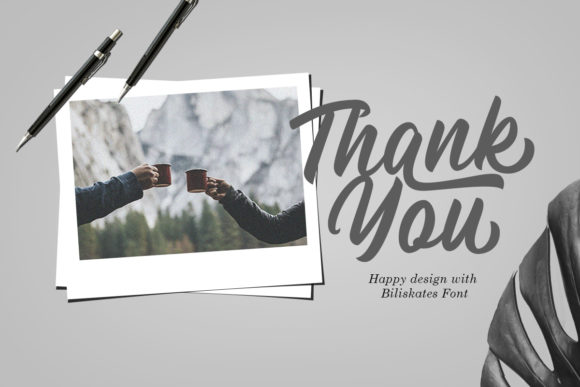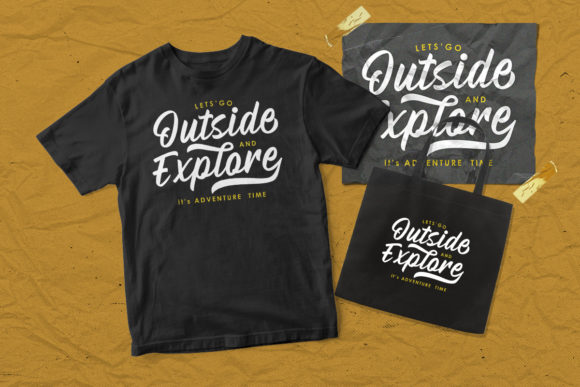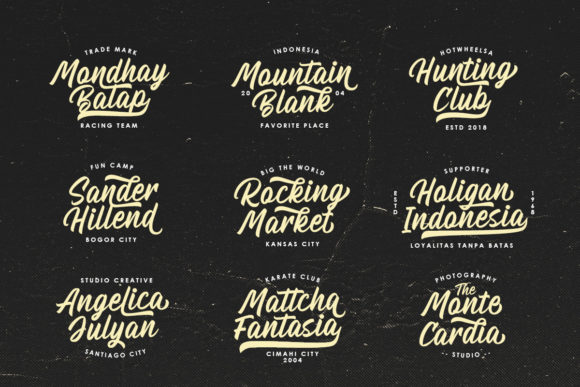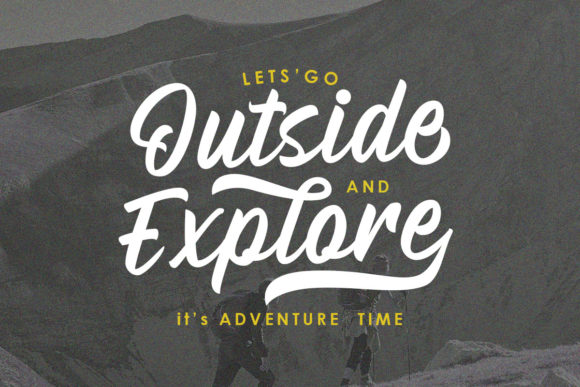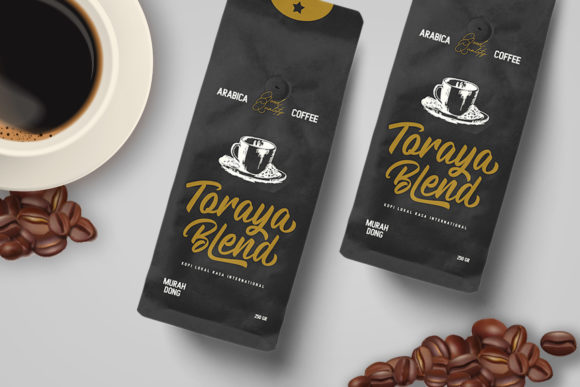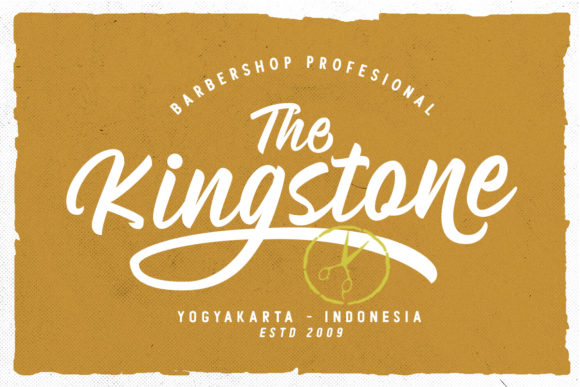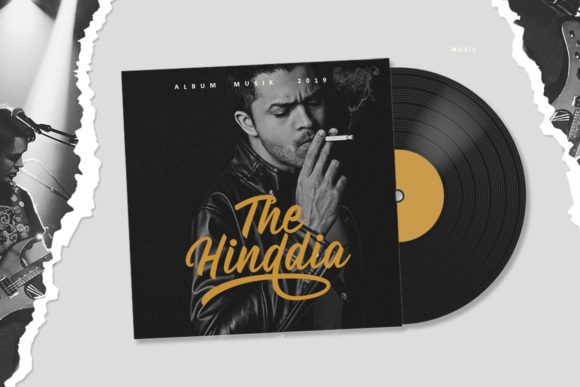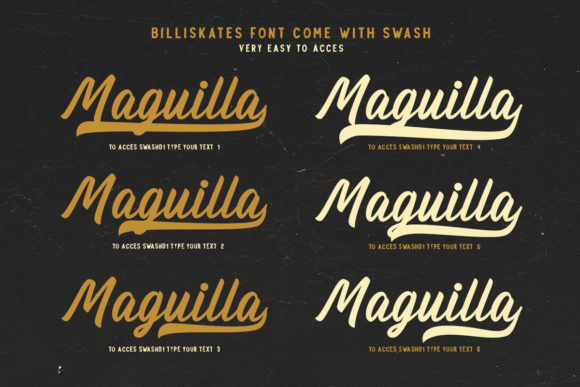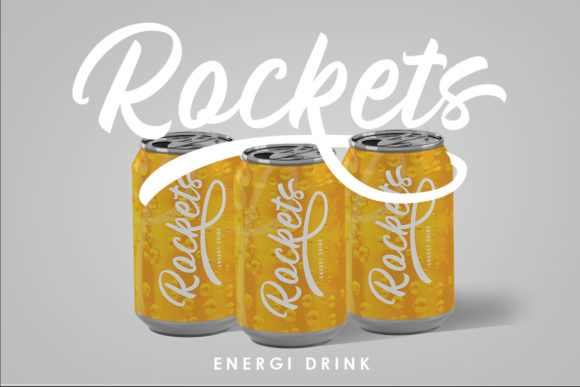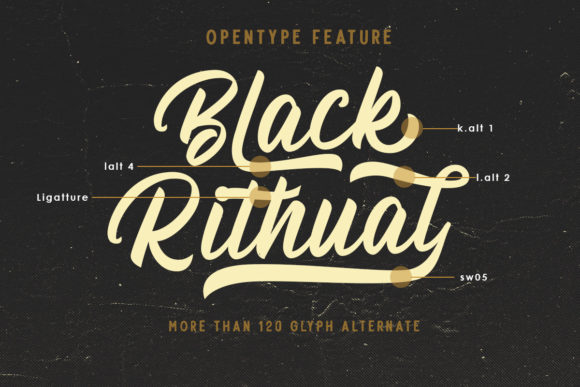
HomeScript FontsBillskates Font Script Fonts Billskates Font FacebookXPinterestWhatsApp Billskates Font Poster 2 Billskates Font Poster 3 Billskates Font Poster 4 Billskates Font Poster 5 Billskates Font Poster 6 Billskates Font Poster 7 Billskates Font Poster 8 Billskates Font Poster 9 Billskates Font Poster 10 Billskates Font Poster 11 Billskates Font Poster 12 Billskates Font Poster 13 About Billskates Font Billskates is a modern and bold script font that aches with nostalgia. Fall in love with its elegant charm! DOWNLOAD ON CREATIVE FABRICAThis font is sold and delivered by Creative Fabrica. Font Canyon may earn a commission if you buy through this link. People also explored Estelle Font Letter Hanger Cruz Script Calligraphic Pro Aloha Friday Font Fantasy Script 1 Font Majblomma Font Thuesday Font Volgue Font Katty Font 355 0 TagsBillskates Font Previous articleQuestario FontNext articleMarlina Font LEAVE A REPLY Cancel reply Comment: Please enter your comment! Name:* Please enter your name here Email:* You have entered an incorrect email address! Please enter your email address here Website: Save my name, email, and website in this browser for the next time I comment. Personal Use Free Evensong Hollow Personal Use Free Read more about this font Creativo Personal Use Free Read more about this font The Pottery Personal Use Free Read more about this font Amelline Personal Use Free Read more about this font BLOG To increase your work productivity, choose the most readable fonts. In today's fast-paced work environment, where digital communication and information consumption are integral to our daily routines, the choice of fonts can significantly impact... Where to Buy American Fonts Online in 2024 Free vs Paid Fonts: Why Investing in Premium Fonts Is Worth It Free Fonts Risk: Why Free Fonts Can Be Dangerous for Designers